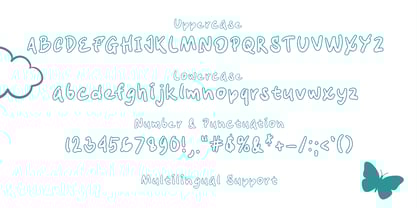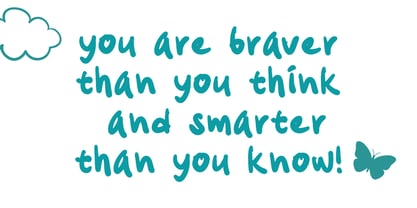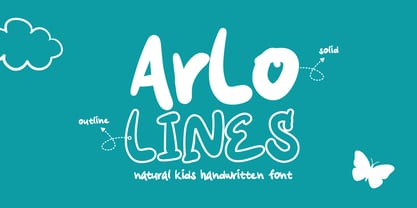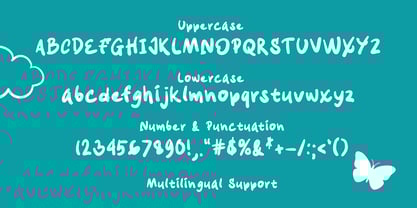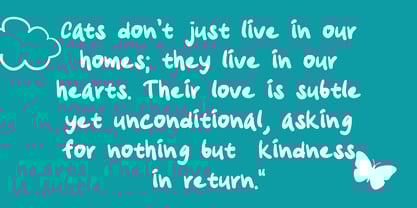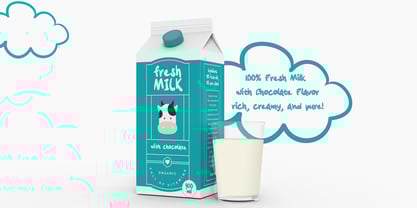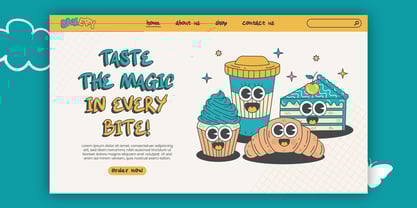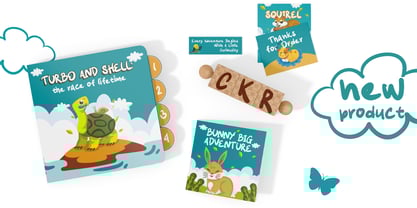
Arlo Lines
The Arlo Lines Font Family was designed by Sipanji and published by Sipanji21. Arlo Lines contains 2 styles and family package options. More about this family
Arlo Lines is a fun and natural kids' handwritten font that brings a playful and cheerful touch to any design. It comes in two delightful styles—Regular (Solid) and Outlined—offering versatility for different creative needs. Inspired by children's handwriting, this font features casual, smooth strokes that feel warm, friendly, and full of personality.
Perfect for children's books, educational materials, school projects, greeting cards, playful branding, and more, Arlo Lines adds a joyful and approachable look to any project. Whether you're designing for print or digital media, this font is a great choice to make your text feel lively, authentic, and engaging!